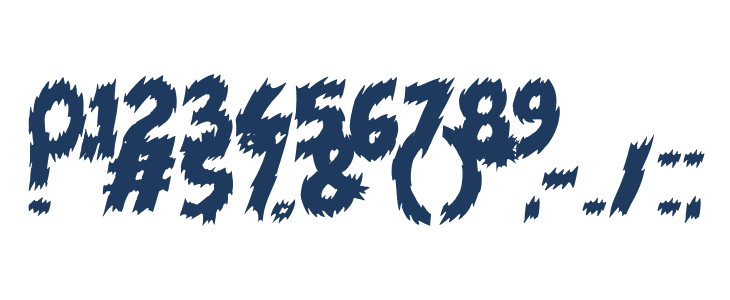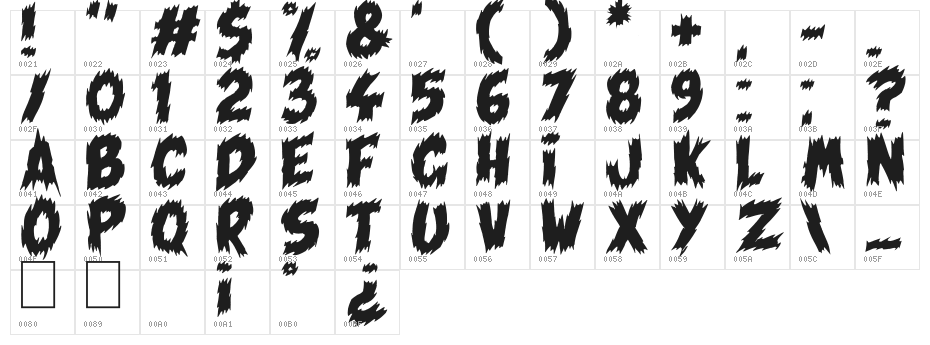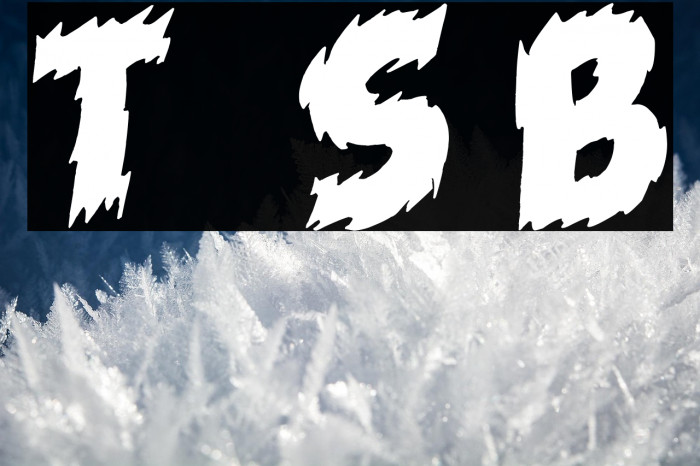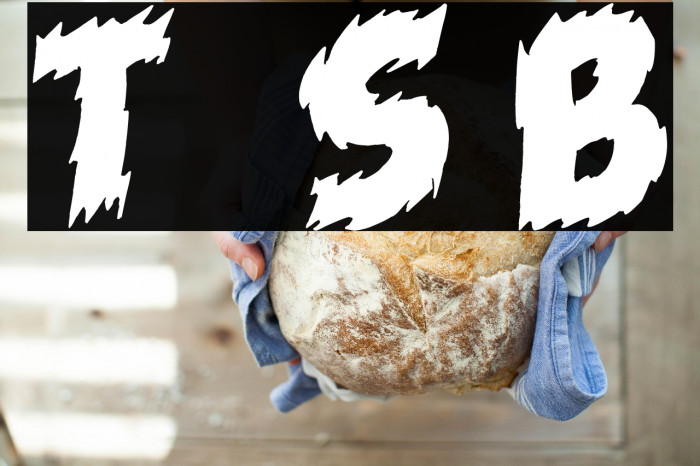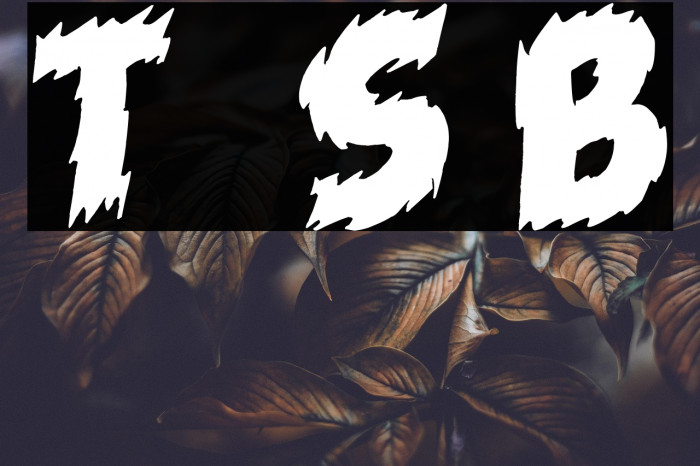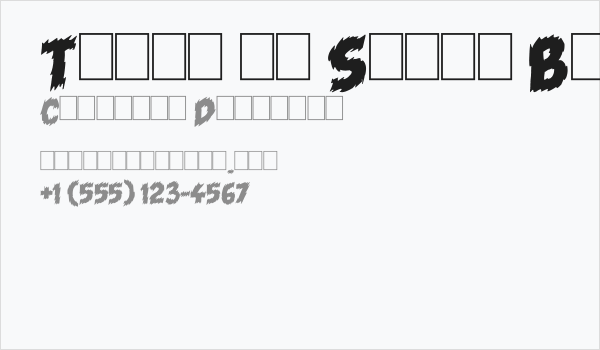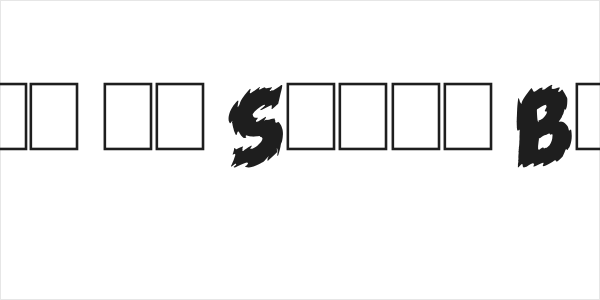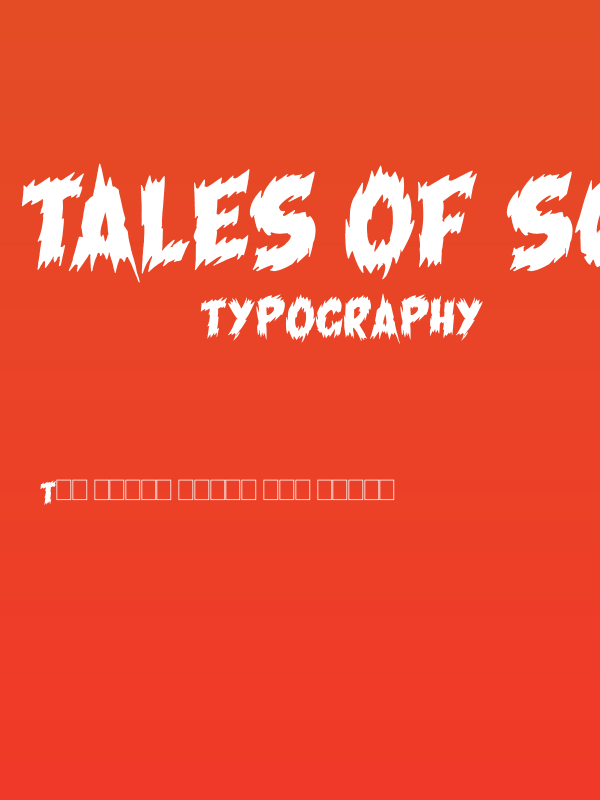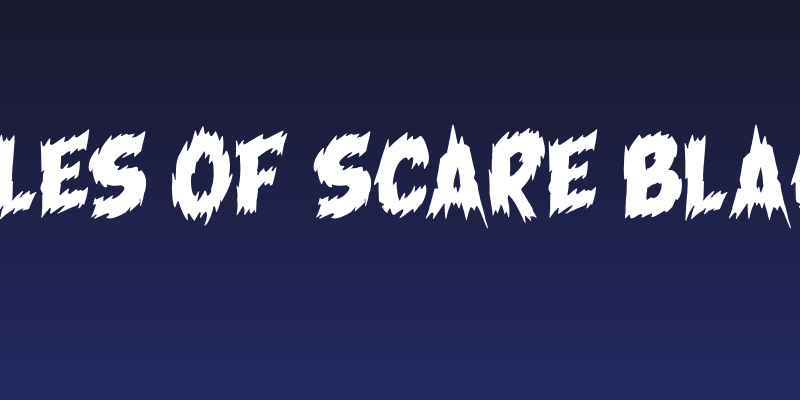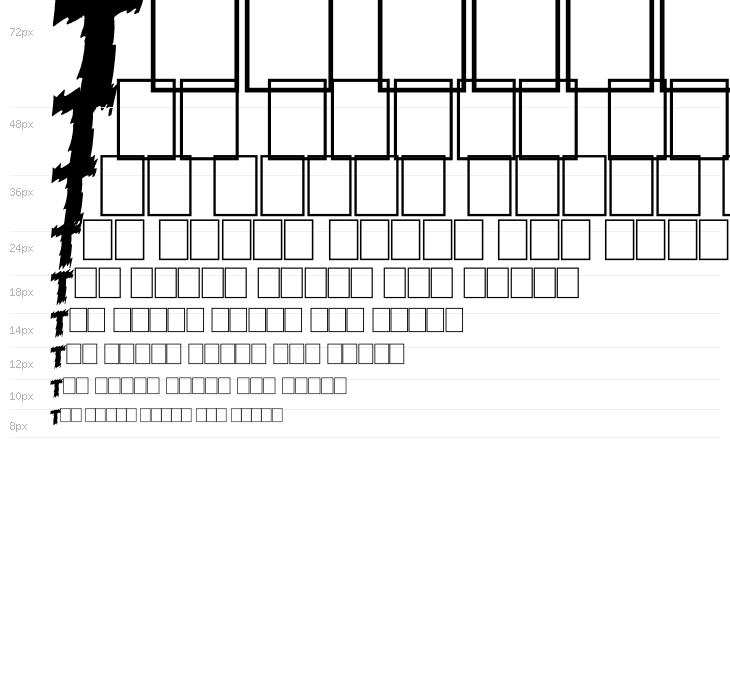
Tales of Scare Black Font
Tales of Scare Black Description
This font features a bold and jagged design, reminiscent of torn paper or claw marks, giving it a distinctly eerie and unsettling appearance. The characters are highly stylized with irregular edges, creating a sense of movement and chaos. The uppercase and lowercase letters maintain a consistent style, with exaggerated serifs and sharp angles. Numbers and special characters follow the same design principles, ensuring a cohesive look across all elements. This font is ideal for creating a spooky or horror-themed atmosphere, making it perfect for Halloween events or horror movie posters.
| Proposed Projects | Ideal for Halloween events, horror movie posters, haunted house flyers, and spooky-themed merchandise. |